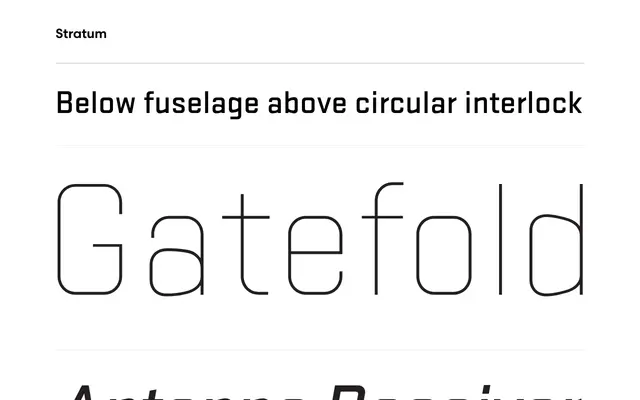
Stratum
Process Type Foundry · Eric Olson, with Egor Golovyrin and Maria Doreuli (Cyrillic), and George Triantafyllakos (Greek) · 2004
A geometric sans-serif by Eric Olson, first released in 2004 and substantially updated in 2024 with italics and expanded script support, now a fixture in sports branding and interface design worldwide.
Offered in two variants, Stratum 1 with sharp angled terminations and Stratum 2 with flat terminations, the family spans six weights across 24 styles including the long-awaited italics added in the 2024 revision. Cyrillic and Greek are now standard, with localised forms for Bulgarian, Serbian and Macedonian, alongside tabular figures and extended currency symbols. Two decades of deployment across global brands, sports franchises and video game titles speak to its durability as a geometric workhorse.
Stratum is a geometric sans-serif with two distinct terminal treatments: sharp angled (Stratum 1) and flat (Stratum 2), both rooted in geometric construction suited to technical and branding applications.